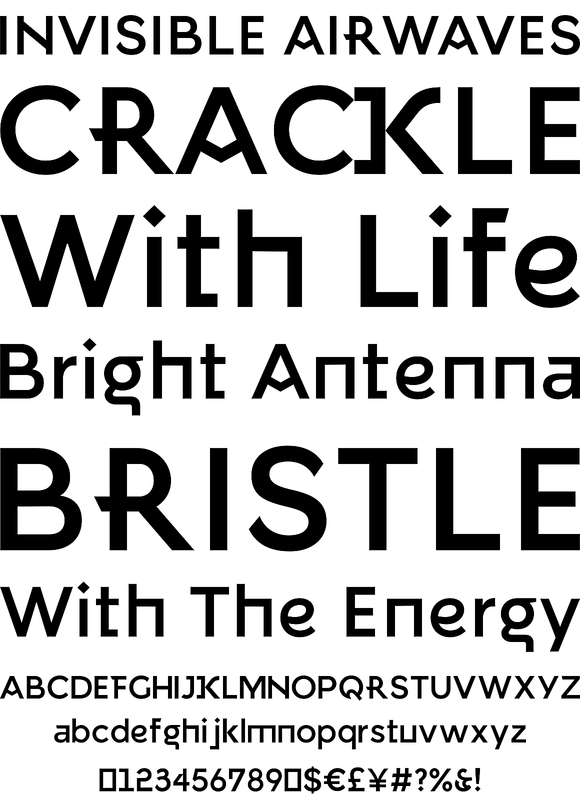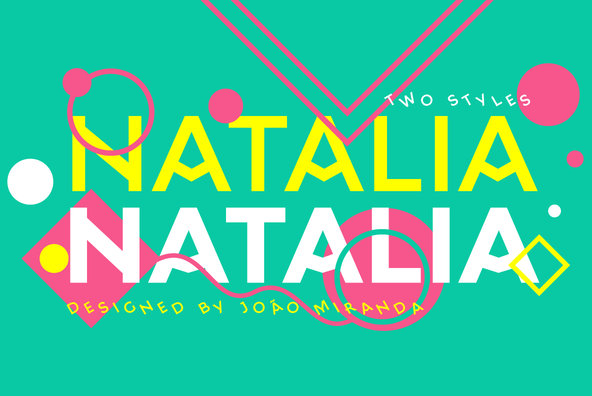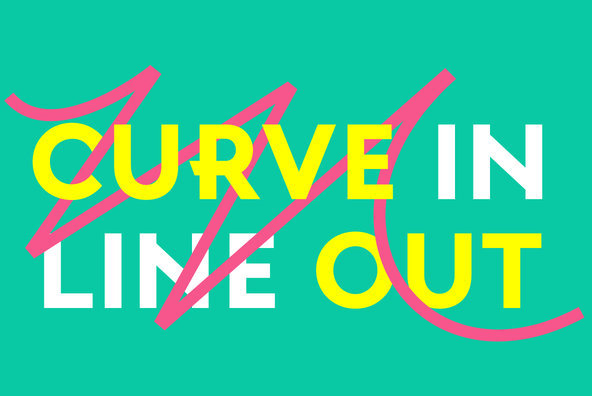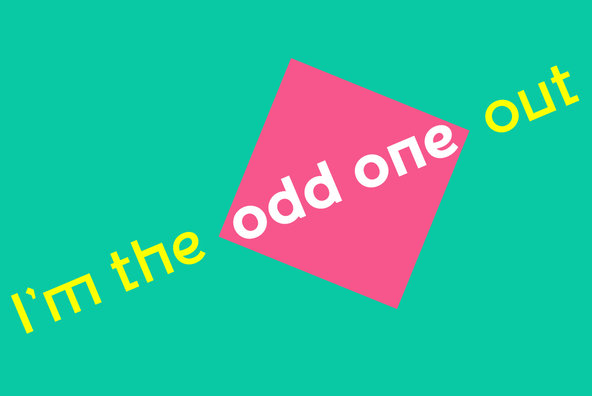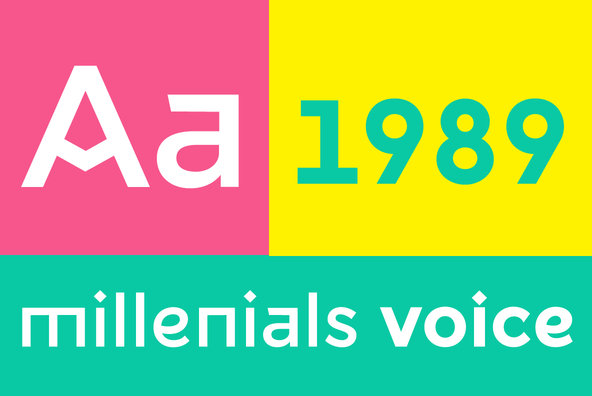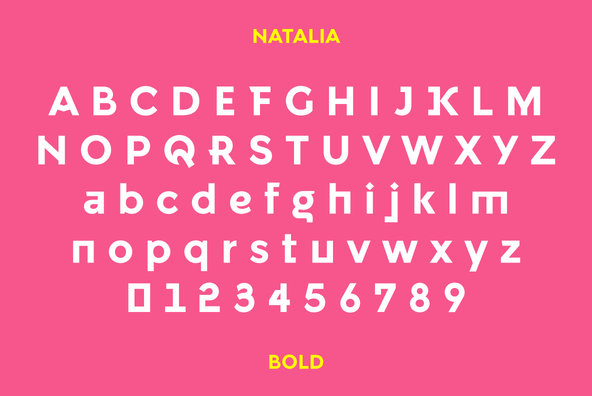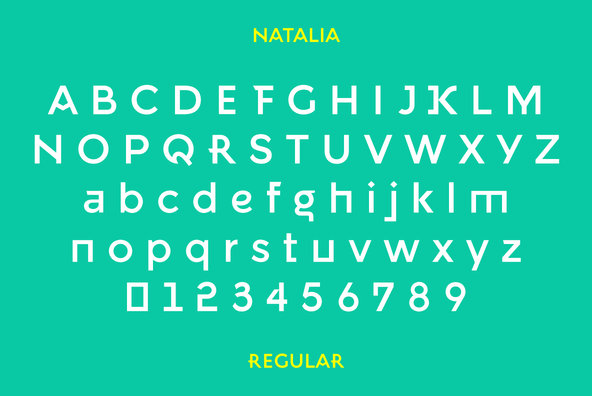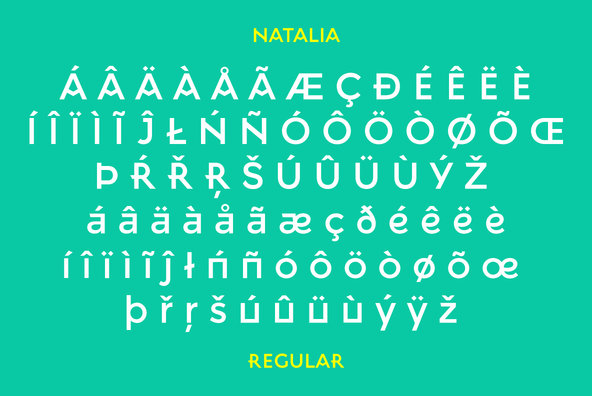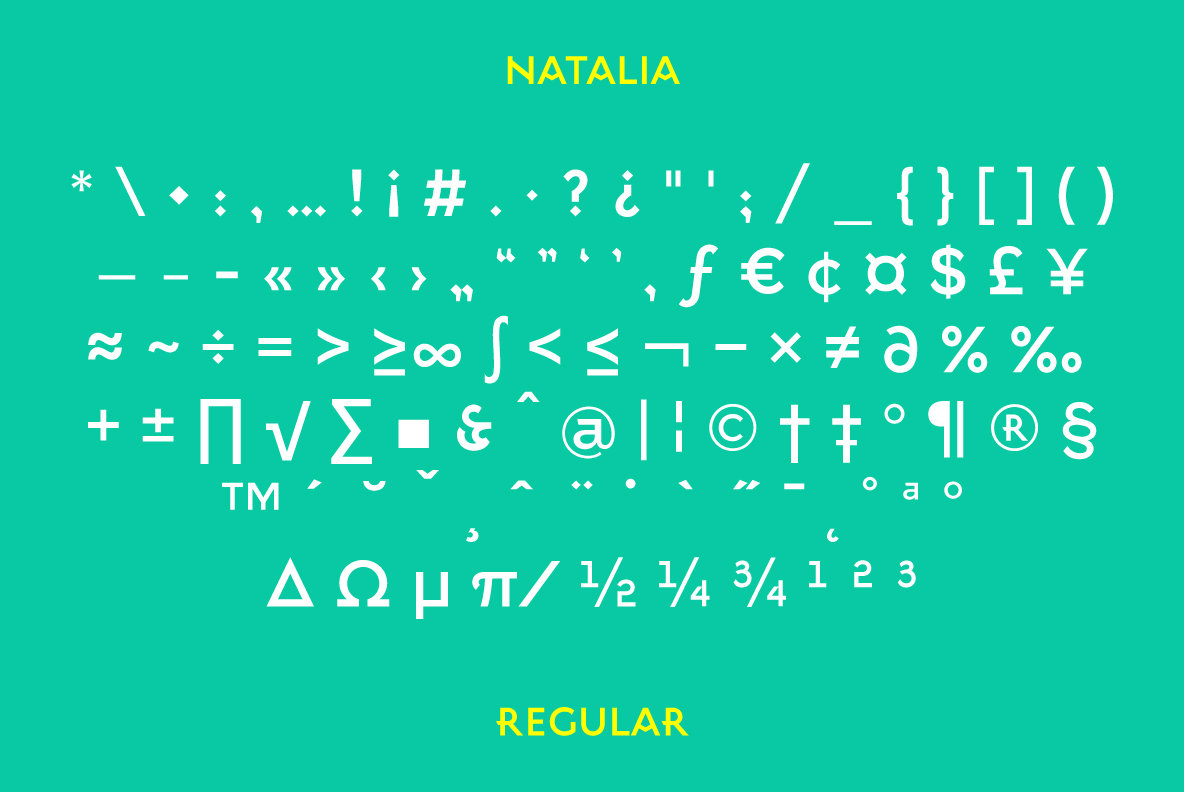
Natalia
Natalia's voice reflects the contemporary world. With its irreverent style you may find her speaking and exposing the most trendy contents that would reflect how we, the millennials, strive in this mad place where we have grown.
Graphically Natalia has a mixed feeling with a divergence approach resulting as only one. With its great coherence, Natalia reflects the vermillion of information that each one of us is faced on a daily basis.